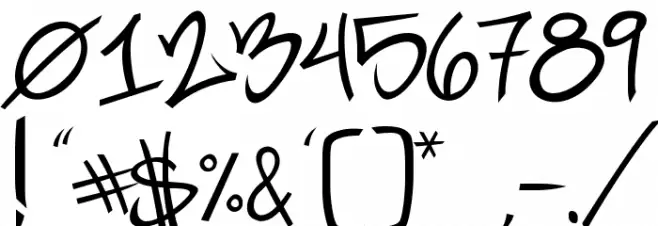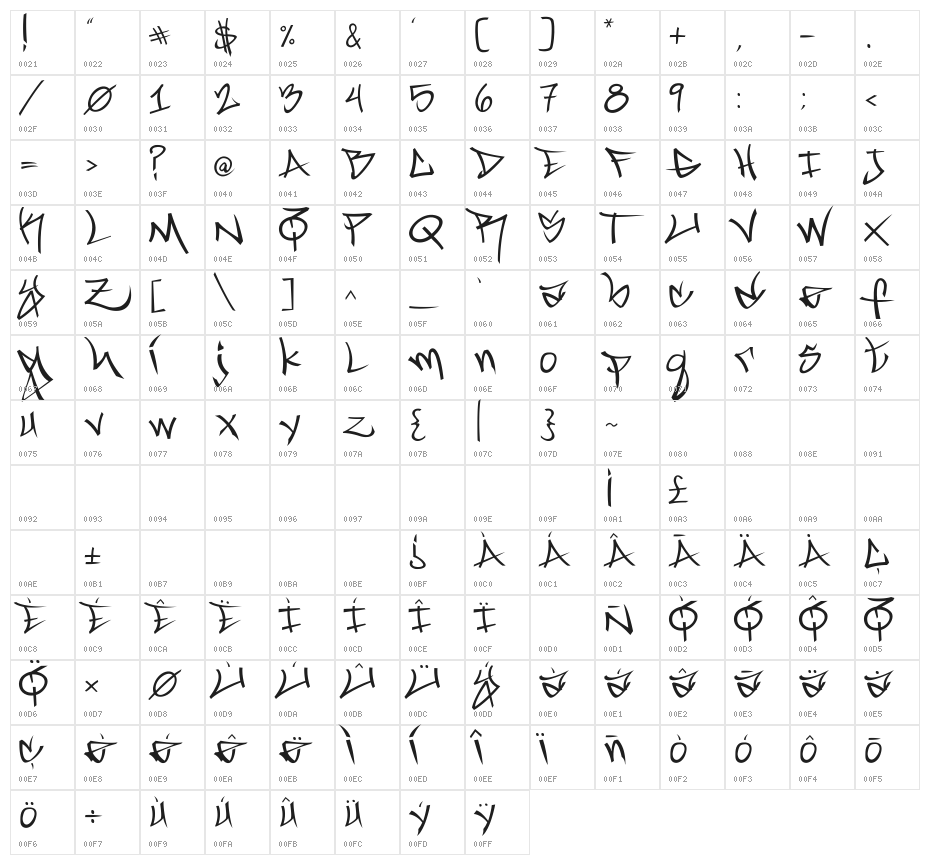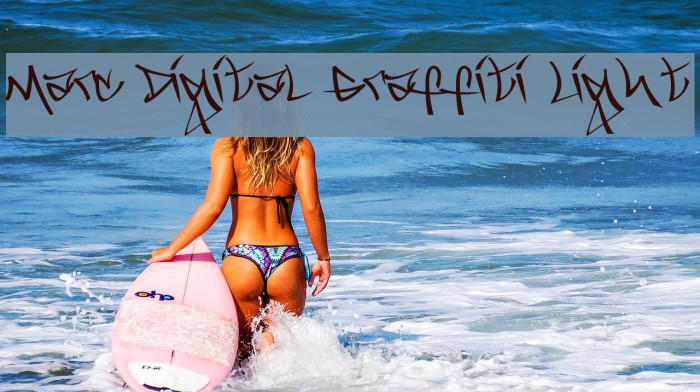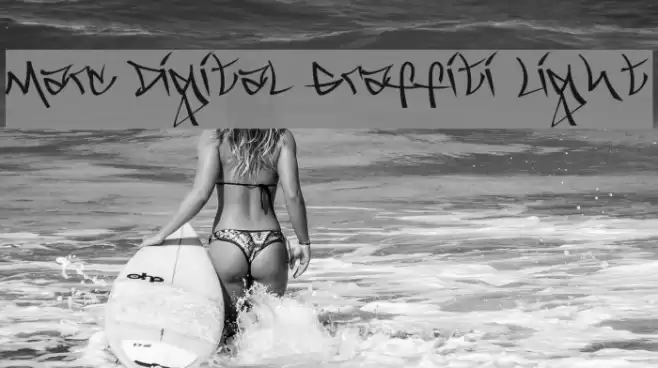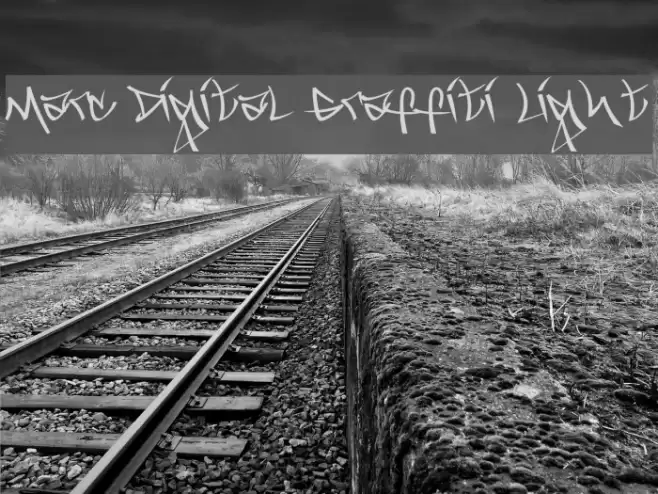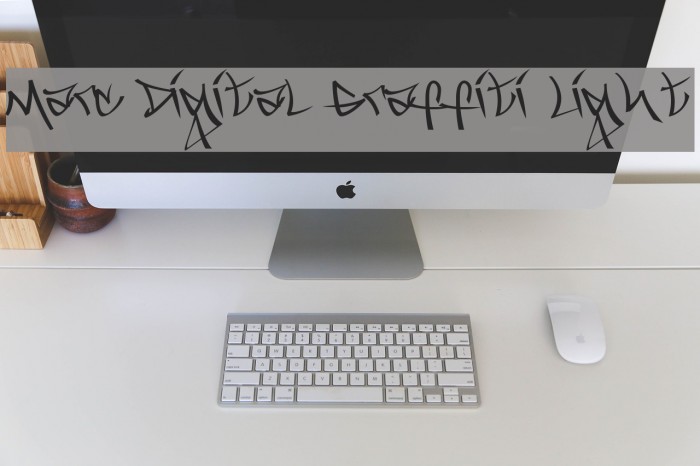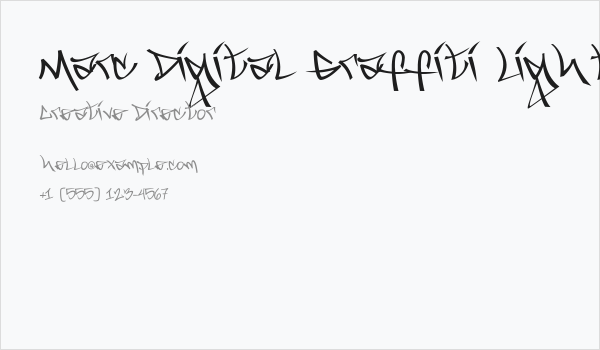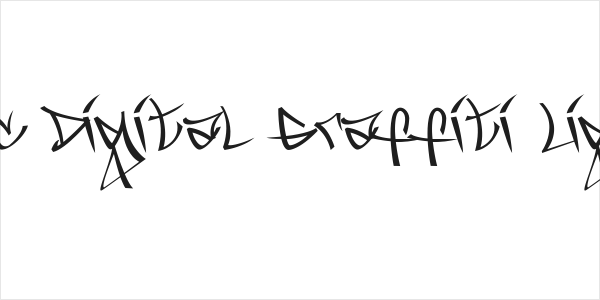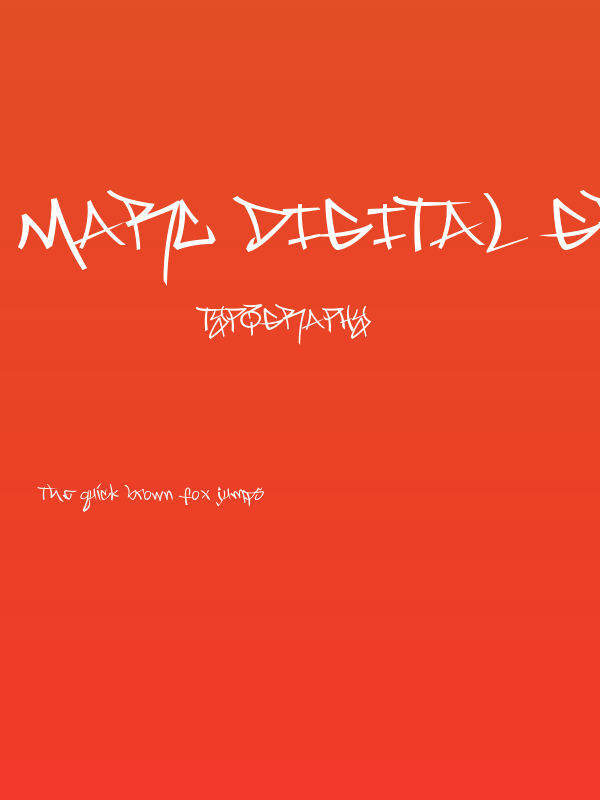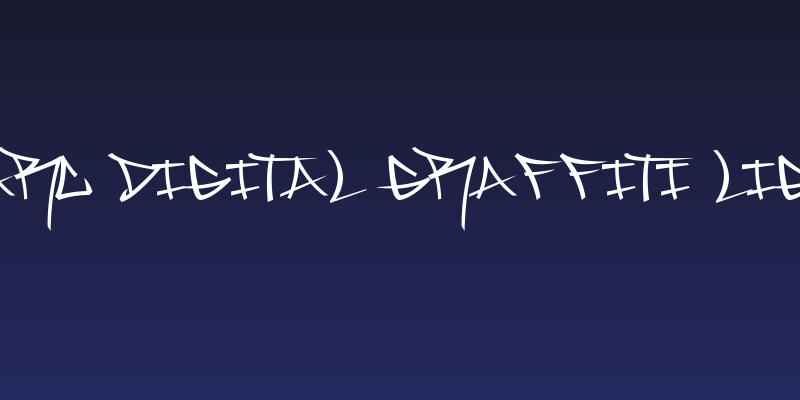
Marc Digital Graffiti Light Font
Marc Digital Graffiti Light Description
This font exudes a dynamic and edgy graffiti style, characterized by its bold, angular strokes and sharp edges. The letters are highly stylized, with a sense of movement and energy that mimics the fluidity of street art. The uppercase and lowercase letters maintain a consistent aesthetic, with exaggerated curves and pointed terminals. Numbers and special characters follow the same design principles, ensuring a cohesive look across all glyphs. The font's unique style makes it stand out, capturing the rebellious and creative spirit of urban graffiti.